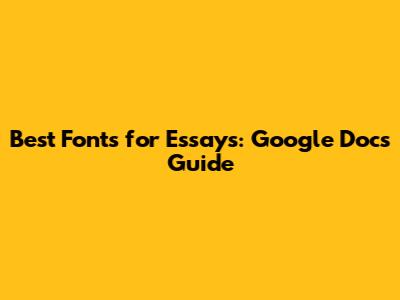
- Open Your Document: First things first, open the Google Docs document you're working on.
- Select the Text: Highlight the text you want to change. You can select a word, a sentence, a paragraph, or the entire document by pressing
Ctrl+A(orCmd+Aon a Mac). - Access the Font Menu: Look for the font menu in the toolbar at the top of the screen. It usually displays the current font name (e.g., Arial, Times New Roman).
- Choose Your Font: Click on the font menu to open a dropdown list of available fonts. Scroll through the list and select the font you want to use.
- Adjust Font Size: Next to the font menu, you'll find the font size menu. Click on it to choose the desired font size (usually 12 points for essays).
- Formatting Options: While you're at it, make sure your line spacing is set to double-spaced (2.0). You can find this option under the "Format" menu.
- Apply Changes: Once you've selected your font, size, and line spacing, the changes will be applied to the selected text. Make sure everything looks good!
Choosing the right font for your essay in Google Docs is more important than you might think! The best fonts for essays not only make your work look professional, but also enhance readability, ensuring that your arguments are easily understood and appreciated by your instructors. When you're working hard on your essays, the last thing you want is for the font to distract from your brilliant ideas, right? Let’s dive into the world of fonts and discover which ones will make your essays shine in Google Docs. After all, presentation matters, especially in academics!
Why Font Choice Matters in Essay Writing
Okay, guys, let's get real. Why should you even care about the font you use in your essay? Isn't it just about getting the words down on the page? Well, not quite. The impact of font choice goes beyond mere aesthetics; it's about making your essay readable, professional, and taken seriously. Think of it like this: would you wear pajamas to a job interview? Probably not! Similarly, using a wacky or hard-to-read font can undermine all the hard work you've put into your writing.
Readability is key. A clear, legible font ensures that your reader can focus on your arguments without straining their eyes. This is especially important for professors who have to read dozens of essays. Make their lives easier by choosing a font that allows them to glide through your work effortlessly. A professional-looking font also adds credibility to your essay. It tells your instructor that you've taken the assignment seriously and paid attention to detail. This can subtly influence their perception of your work, potentially boosting your grade. Font choice also reflects your attention to detail. Choosing a font that adheres to academic standards shows that you understand the conventions of essay writing. This demonstrates respect for your audience and the assignment itself. In essence, selecting the right font is a small but significant step in presenting your best work. It enhances readability, adds professionalism, and reflects your commitment to excellence. So, next time you're writing an essay, don't overlook the importance of font choice. It could be the secret ingredient that elevates your work from good to great!
Top Font Recommendations for Google Docs Essays
So, what are the best font options when writing essays in Google Docs? There are several fonts that strike the perfect balance between readability, professionalism, and style. Let's explore some top contenders and why they work so well for academic writing.
Times New Roman
Ah, Times New Roman – the old reliable! It’s like the classic black dress of fonts: always appropriate and never out of style. Times New Roman is a serif font, which means it has small strokes at the ends of the letters. These serifs help guide the reader’s eye along the lines of text, making it easier to read long passages. It's a standard for a reason, especially in academic settings. Most professors are accustomed to reading essays in Times New Roman, so using it won't raise any eyebrows. Its familiarity ensures that your content takes center stage without any distractions. Times New Roman is highly readable, even in smaller sizes. The distinct shapes of the letters make it easy to differentiate between characters, reducing eye strain. This is particularly beneficial for long essays where readability is crucial. Using Times New Roman conveys a sense of professionalism and formality. It signals that you've adhered to conventional standards, which can positively influence your instructor's perception of your work. Plus, many style guides and academic institutions specifically recommend Times New Roman for essays and research papers. Sticking to this font demonstrates that you're following instructions and paying attention to detail. In Google Docs, Times New Roman is readily available and renders consistently across different devices and browsers. You won't have to worry about formatting issues or compatibility problems, making it a reliable choice for your essays. While it may not be the most exciting or innovative font, Times New Roman is a solid option for essay writing. Its readability, professionalism, and widespread acceptance make it a safe bet for any academic assignment. So, when in doubt, stick with Times New Roman – it's a classic for a reason!
Arial
Next up is Arial. While it's a sans-serif font, meaning it lacks the small strokes that Times New Roman has, Arial is still a solid option. Arial is clean, modern, and highly legible, making it a popular choice for a variety of applications. Though it may not be the go-to for formal academic papers, it's perfectly acceptable for many essay assignments. Its simplicity ensures that the focus remains on your content rather than the font itself. Arial's clean lines and uniform letterforms contribute to its readability. The absence of serifs makes it easy to read on screens, which can be particularly helpful if your instructor prefers to read essays digitally. Using Arial can give your essay a contemporary feel. While Times New Roman is classic, Arial offers a more modern aesthetic. If you're looking to subtly update your essay's appearance without sacrificing readability, Arial is a great choice. Arial is universally available on virtually every computer and operating system. You can be confident that your essay will look the same on your computer as it does on your instructor's, eliminating any formatting surprises. While Arial may not be as traditional as Times New Roman, it's still a highly professional and readable font. It's a great option for essays where you want to strike a balance between classic and contemporary styles. So, if you're looking for a sans-serif alternative that's both versatile and reliable, Arial is definitely worth considering.
Calibri
Calibri is another sans-serif font that has gained popularity over the years. It's often the default font in Microsoft Word, so many people are already familiar with it. Calibri is known for its soft, rounded edges, which give it a friendly and approachable feel. While it may not be the most traditional choice for essays, it can still work well in certain situations. Its modern aesthetic can make your essay appear more contemporary and accessible. Calibri's rounded letterforms make it easy to read, especially in longer passages. Its smooth lines reduce eye strain, allowing your reader to focus on your content without fatigue. Using Calibri can give your essay a subtle, modern update. If you want to move away from the more formal look of Times New Roman, Calibri can be a refreshing alternative. It strikes a balance between professionalism and approachability. Calibri is widely available and renders consistently across different platforms. You can be confident that your essay will look the same regardless of where it's viewed, making it a reliable choice. While Calibri may not be the first font that comes to mind for essay writing, it's a solid option if you're looking for a modern, readable, and widely available font. Its soft, rounded edges give it a friendly feel, making it a great choice for essays where you want to strike a balance between formality and approachability. So, if you're looking for a sans-serif alternative that's both versatile and reliable, Calibri is definitely worth considering.
Georgia
Georgia is a serif font that was designed specifically for on-screen readability. It's similar to Times New Roman but has a slightly larger x-height, which makes it easier to read at smaller sizes. Georgia is a great option if you want a font that's both classic and highly legible. Its clear letterforms and generous spacing contribute to its readability, making it a great choice for long essays. Using Georgia can give your essay a sophisticated and polished look. It's a serif font, so it has a traditional feel, but its modern design makes it suitable for a variety of academic assignments. Georgia is widely available and renders consistently across different platforms. You can be confident that your essay will look the same regardless of where it's viewed, making it a reliable choice. While Georgia may not be as ubiquitous as Times New Roman, it's still a highly professional and readable font. It's a great option for essays where you want to combine classic style with modern readability. So, if you're looking for a serif alternative that's both versatile and reliable, Georgia is definitely worth considering. Its on-screen readability and sophisticated design make it a great choice for any academic assignment.
Font Size and Spacing for Optimal Readability